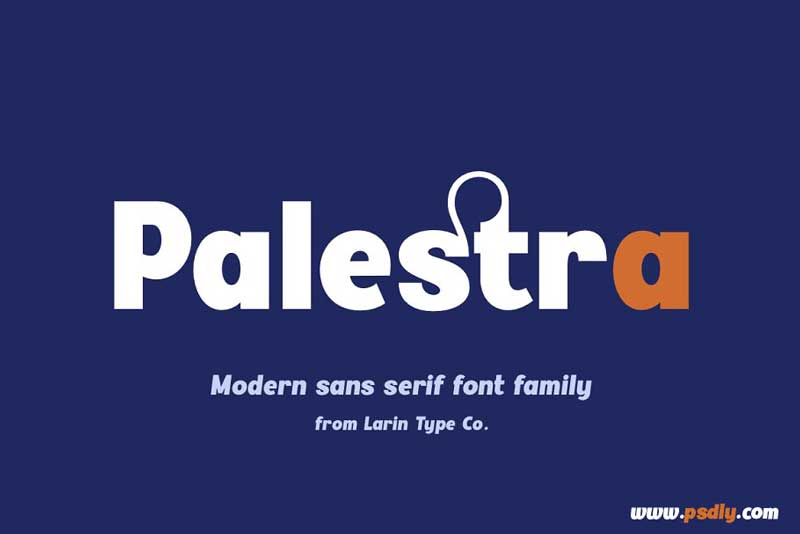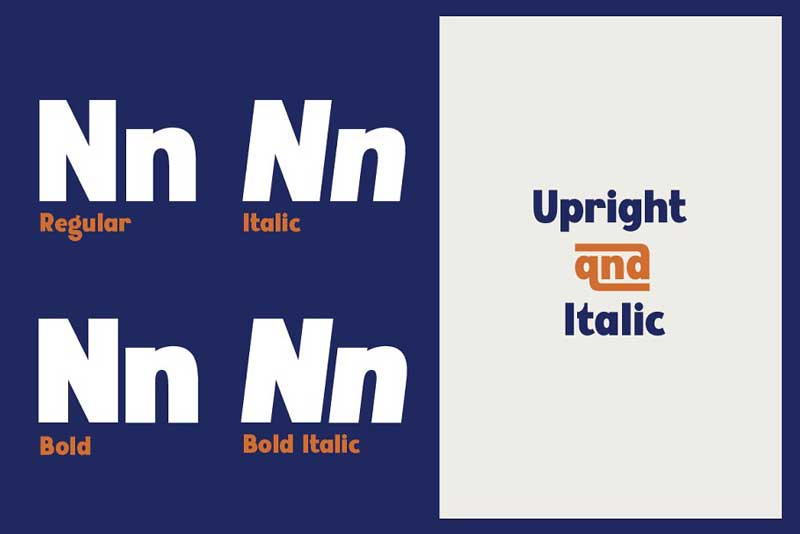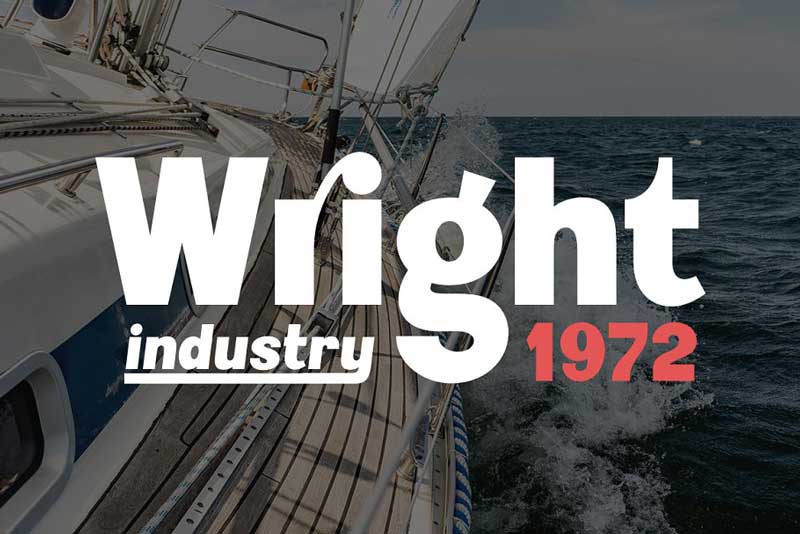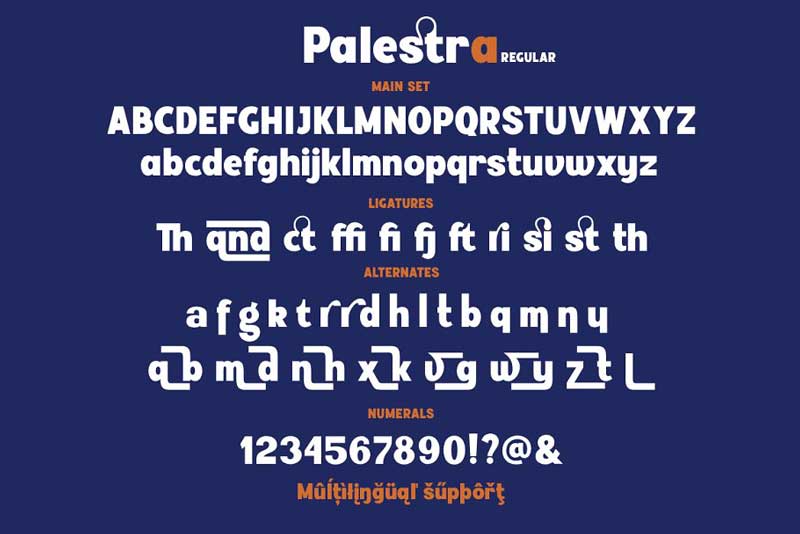
Palestra font Family By Larin Type Co
Download Palestra font family free included regular, bold, italic style. Palestra font New and creative font. you can use this font for every purpose but I recommended to use for health and fitness work purpose. Palestra font gives a proper feel to like your logo, business card, stationary, magazine health, and fitness work. So download this font and install your system however sometimes you need this font.